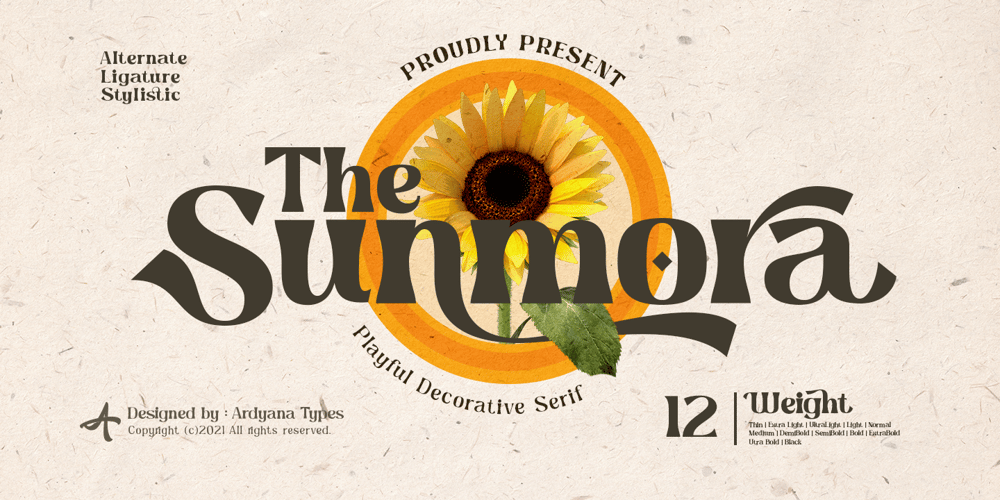
The Sunmora
The Sunmora font
The Sunmora Font Family was designed by Ardyana Putra and published by Ardyanatypes. The Sunmora contains 12 styles and family package options. THE SUNMORA DECORATIVE SERIFClassic Decorative Serif Font from the eighties to present.It’s an elaborate curve and unique tail shape with a special 12 weight, thin to black. Make you freely set any design for headings, logos, fashion, website, floral, tagging, magazine cover, posters, and many moreCompletely bloom with the compatibility in multi-language, make it easy to use for any country. Come up with an alternative to bloom up your design and discretionary ligature to use it as decorative fontTHE SUNMORA has bloomed and it’s all class so if you want a stylish font that is guaranteed to draw the eye, then this is it!A guide to accessing all alternatives can be read at: http://adobe.ly/1m1fn4YFeatures: A-Z Character Set a-z Characters set Numerals & Punctuations (OpenType Standard) Multilingual Thank you and have a nice day